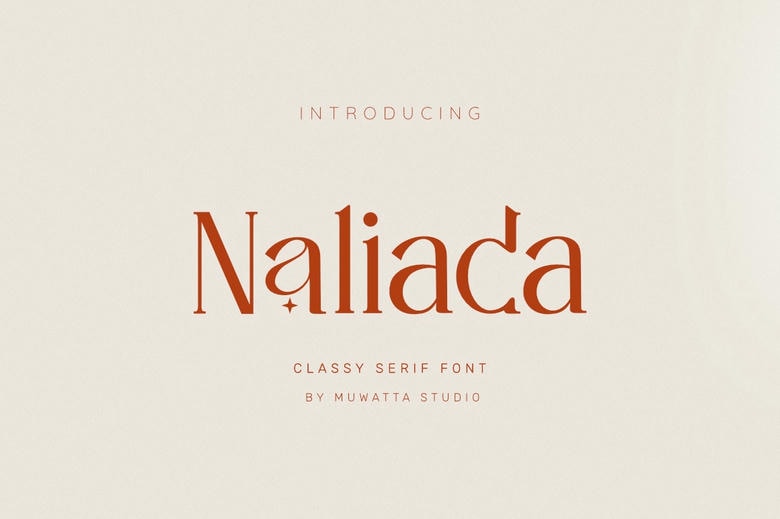
Naliada Font
Naliada is a clean and classy typeface intended for the lovers of fine typography. It captures the sophistication, subtlety and femininity of some geometrical shapes and that is why Naliada is ideal for fashion and weddings design or even typeface design. As suitable for luxurious and classy projects, Naliada is perfect for engagements and weddings, fashion magazine and logo designs.
It has a neat flow of its letters which makes all projects done on it to have an exclusive and classy look. Whether it is writing mesmerizing headlines, elegant writing invitations or contemporary logos, Naliada Typeface is perfect for the extra flair and style.